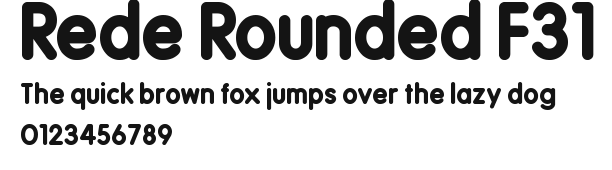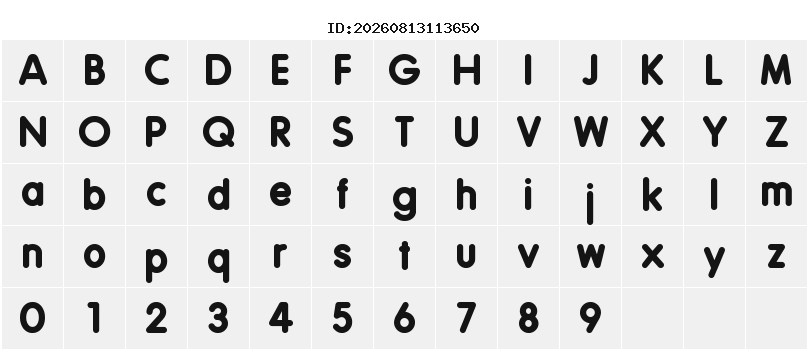
• Font Name: Rede Rounded F31
• Full Font Name: Rede Rounded F31
• Version: Version 1.00 January 12, 2009, initial release
• Copyright: Igor C. Barros Cartoons 2009, São Paulo, Brazil. Freeware. For best similarity use at 31 px.
About Rede Rounded F31.ttf
Rede Rounded F31.ttf is a modern, elegant sans-serif font designed for ultimate readability and visual harmony. Perfect for branding, headlines, web design, and print materials.